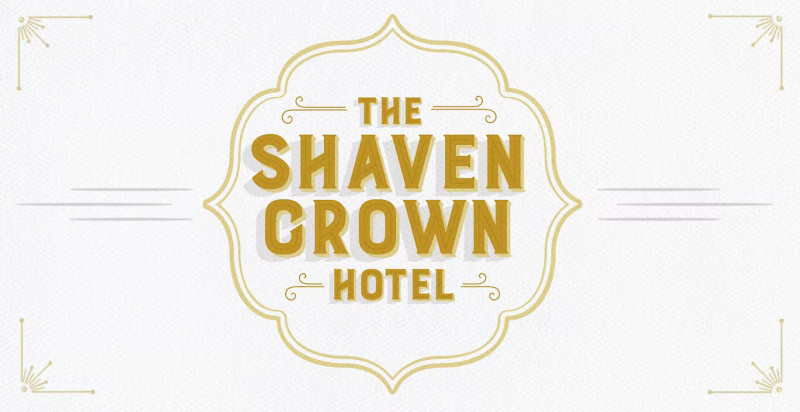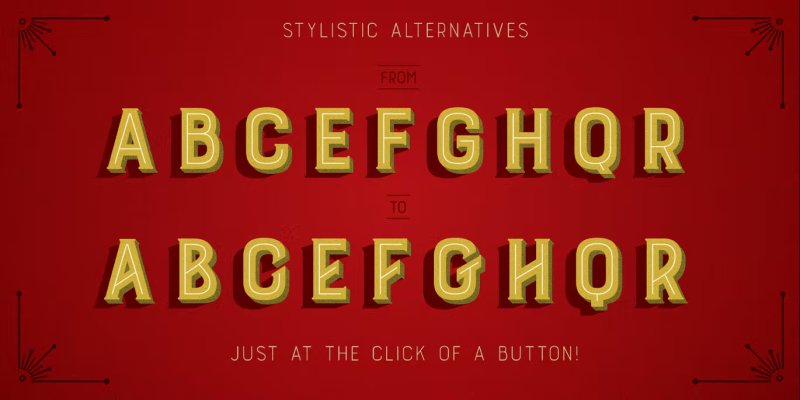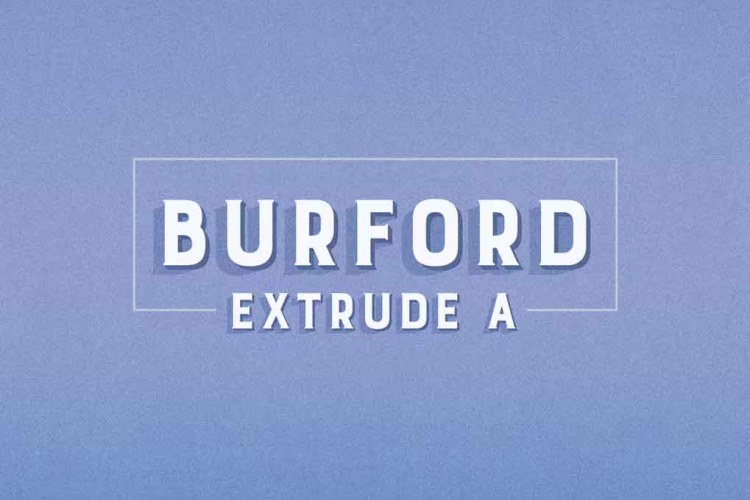
Burford Extrude A Font
Burford is a font family that I sketched while traveling through Europe. I was mesmerized by all the unique typography that was showcased throughout the five countries I…
Burford is a font family that I sketched while traveling through Europe. I was mesmerized by all the unique typography that was showcased throughout the five countries I visited. Inspired by all that I had seen, I found myself spending 4-5 hours per day in Amsterdam’s Vondel Park drawing characters. Once back in the states I digitalized Burford, deciding it would make for a beautiful layer-based font.
Burford Pro package comes with all 18 layering fonts including 5 base layers, 3 top layers, 5 bottom layers and 2 sets of graphic elements. They are strategically made to build on top of each other, creating a cohesive and easy to use layer-based family. Each font also comes with a set of Stylistic Alternatives for letters A C E F G H P Q R. Burford Basic package is created for users who don’t have access to premiere design programs (such as Illustrator, InDesign, Photoshop, etc) and are unable to use the layering effect. Burford can still be a powerful tool as each font can also be used on its own. It includes every font file not needed for the layering effect. (Include 13 fonts – Burford Basic, Dots, DropShadow, Extras Set A, Extras Set B, Extrude C, Inline, Line, Marquee, Outline, Stripes A and Stripes B).
The Burford Extras set uses all basic keyboard characters – around 100 total elements per set. They are designed to go specifically with Burford and complement its varying styles perfectly. The set includes: banners, borders, corners, arrows, line breaks, catchwords, anchors and many more!